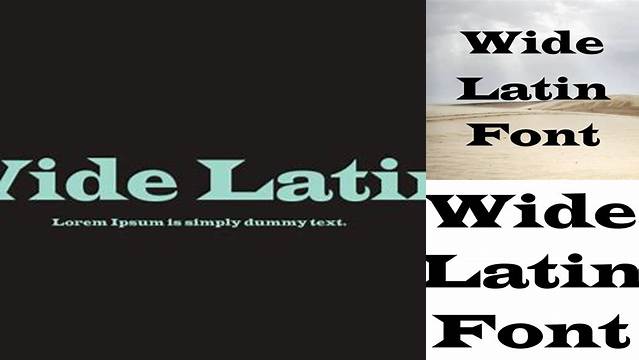
Hey guys! Are you on the hunt for some awesome, free wide Latin fonts to spice up your design projects? Well, you've come to the right place! We're diving deep into the world of typography to uncover some gems that will make your text pop. Let's get started!
What are Wide Latin Fonts?
So, what exactly are wide Latin fonts? Basically, they're fonts that have a broader character width than your typical font. This can give your text a bolder, more impactful look. Think of it as the font equivalent of putting on a pair of statement glasses – it just grabs attention! These fonts are particularly useful when you want to create eye-catching headlines, posters, or any design element that needs to stand out. The increased width can also improve readability in certain contexts, especially for shorter texts or when used in large sizes. When choosing a wide Latin font, consider the overall tone you want to convey. Some wide fonts have a playful, retro feel, while others are more modern and authoritative. Experiment with different styles to find the perfect match for your project. You might even find that combining a wide Latin font for your headings with a narrower font for the body text creates a visually appealing contrast. Don't be afraid to mix and match until you achieve the desired effect.
Why Use Wide Latin Fonts?
Why should you even bother with wide Latin fonts? Well, for starters, they're fantastic for making a statement. They instantly add a touch of drama and emphasis to your designs. Think about it – a poster with a sleek, wide Latin font screams attention compared to one with a standard, narrow typeface. Beyond the aesthetic appeal, wide Latin fonts can also improve readability in certain contexts. For example, if you're designing a billboard or a website headline, a wide Latin font ensures that the text is easily legible from a distance. This is because the increased letter spacing and character width make each letter more distinct and recognizable. Moreover, wide Latin fonts can convey a sense of modernity and confidence. They're often used in branding materials for tech companies and startups to project an image of innovation and boldness. If you want your brand to stand out from the crowd and make a lasting impression, consider incorporating wide Latin fonts into your visual identity. Experiment with different weights and styles to find the perfect balance between readability and visual impact. Remember, typography is a powerful tool that can shape perceptions and influence emotions.
Where to Find Free Wide Latin Fonts
Best Free Wide Latin Fonts for Headlines
When it comes to headlines, you want a wide Latin font that's bold, attention-grabbing, and easy to read. Some excellent choices include Bebas Neue, Montserrat, and Oswald. Bebas Neue is a classic sans-serif font with a tall, narrow profile that gives it a modern and authoritative feel. Montserrat is another popular sans-serif option, known for its clean lines and geometric shapes. Oswald is a slightly more condensed sans-serif font that works well for headlines and subheadings. These fonts are all available for free on Google Fonts and are licensed for both personal and commercial use. When using these fonts for headlines, consider increasing the letter spacing and adjusting the font weight to maximize their impact. Experiment with different color combinations and background treatments to create a visually striking headline that commands attention. Remember, the goal is to make your headline stand out from the rest of the page and draw the reader in. A well-chosen wide Latin font can be a powerful tool for achieving this goal.
Top Free Wide Latin Fonts for Body Text
While wide Latin fonts are often associated with headlines, they can also be used effectively for body text in certain situations. However, it's important to choose a font that's legible and comfortable to read for extended periods. Some good options for body text include Open Sans, Lato, and Roboto. Open Sans is a humanist sans-serif font that's known for its clean lines and excellent readability. Lato is another popular sans-serif option that's slightly more rounded and friendly. Roboto is a modern sans-serif font that's designed to be both functional and aesthetically pleasing. These fonts are all available for free on Google Fonts and are optimized for use on screens. When using these fonts for body text, pay close attention to the font size, line height, and letter spacing. You want to ensure that the text is easy to read and doesn't strain the reader's eyes. Avoid using overly bold or condensed fonts for body text, as they can be difficult to read in large blocks of text. Instead, opt for a lighter weight and a more generous line height to improve readability. Experiment with different font pairings to find a combination that's both visually appealing and easy on the eyes.
Wide Latin Font Pairing Ideas
Font pairing can be tricky, but when done right, it can elevate your designs to the next level. When pairing a wide Latin font with another font, it's important to consider the contrast between the two typefaces. You want to choose a font that complements the wide Latin font without overpowering it. One popular approach is to pair a wide Latin font for headlines with a narrower sans-serif font for body text. This creates a clear visual hierarchy and makes the text easy to read. For example, you could pair Bebas Neue with Open Sans, or Montserrat with Lato. Another option is to pair a wide Latin font with a serif font. This can create a more classic and elegant look. For example, you could pair a wide Latin font with Times New Roman or Georgia. When experimenting with font pairings, pay attention to the overall tone and style of your design. You want to choose fonts that complement each other and reinforce the message you're trying to convey. Don't be afraid to try out unconventional combinations and push the boundaries of typography. The key is to find a pairing that's both visually appealing and effective at communicating your message.
Using Wide Latin Fonts in Web Design
In web design, wide Latin fonts can be a powerful tool for creating visually engaging and user-friendly websites. They can be used for headlines, subheadings, buttons, and other design elements that need to stand out. When using wide Latin fonts in web design, it's important to consider the website's overall aesthetic and target audience. You want to choose fonts that complement the website's design and resonate with its users. Also, be sure to optimize the fonts for web use by using a font format like WOFF or WOFF2. These formats are designed to be lightweight and load quickly on web browsers. When implementing wide Latin fonts on your website, pay close attention to the font size, line height, and letter spacing. You want to ensure that the text is easy to read on different devices and screen sizes. Use CSS media queries to adjust the font size and layout for different screen sizes. This will ensure that your website looks great on desktops, tablets, and mobile phones. Experiment with different font pairings and color combinations to create a visually appealing and engaging website that captures the attention of your users.
Wide Latin Fonts in Print Design
Wide Latin fonts aren't just for digital designs; they can also be incredibly effective in print. Think posters, brochures, magazines – anything that needs a visual punch. The key here is to ensure your chosen font translates well to print. This means checking the font's outlines are clean and crisp, and that it holds up at various sizes. When using wide Latin fonts in print, consider the paper stock you're using. A heavier paper stock can handle the bold weight of a wide Latin font better than a thinner one. Also, pay attention to the color palette. Bold fonts often pair well with contrasting colors to create a striking visual impact. Remember to proof your designs carefully before printing. Check for any issues with kerning, leading, or letter spacing. A small adjustment can make a big difference in the final printed product. Experiment with different printing techniques, such as embossing or letterpress, to add texture and dimension to your designs. A well-chosen wide Latin font, combined with the right printing technique, can create a truly memorable and impactful print design.
Wide Latin Fonts for Logos
When it comes to logo design, a wide Latin font can be a game-changer. It can instantly convey a sense of boldness, confidence, and modernity. However, choosing the right font for your logo is crucial. You want a font that's not only visually appealing but also reflects your brand's personality and values. Look for wide Latin fonts that are unique and memorable. Avoid using overly generic or common fonts that will make your logo look like everyone else's. Consider the font's readability at different sizes. Your logo will likely be used in various contexts, from business cards to billboards, so it needs to be legible in both small and large formats. Experiment with different font weights and styles to find the perfect balance between boldness and legibility. Also, pay attention to the font's kerning and letter spacing. Proper kerning can make a huge difference in the overall appearance of your logo. Once you've chosen a font, consider customizing it to make it even more unique. You can adjust the letterforms, add custom ligatures, or create a unique symbol to accompany the font. A well-designed logo with a wide Latin font can be a powerful tool for building brand recognition and creating a lasting impression.
Best Practices for Using Free Wide Latin Fonts
Alright, guys, let's wrap things up with some best practices for using free wide Latin fonts. First and foremost, always check the font's license before using it in your projects. Make sure the font is free for both personal and commercial use. Second, choose fonts that are legible and easy to read. Avoid using overly decorative or stylized fonts that can be difficult to decipher. Third, pay attention to the font's kerning and letter spacing. Proper kerning is essential for ensuring readability and visual appeal. Fourth, experiment with different font pairings to find combinations that complement each other. Fifth, use fonts sparingly and only for elements that you want to emphasize. Sixth, optimize fonts for web use to ensure they load quickly and efficiently. Seventh, proofread your designs carefully before publishing them. Check for any typos, errors, or inconsistencies. By following these best practices, you can ensure that your designs are both visually appealing and effective at communicating your message. Happy designing!